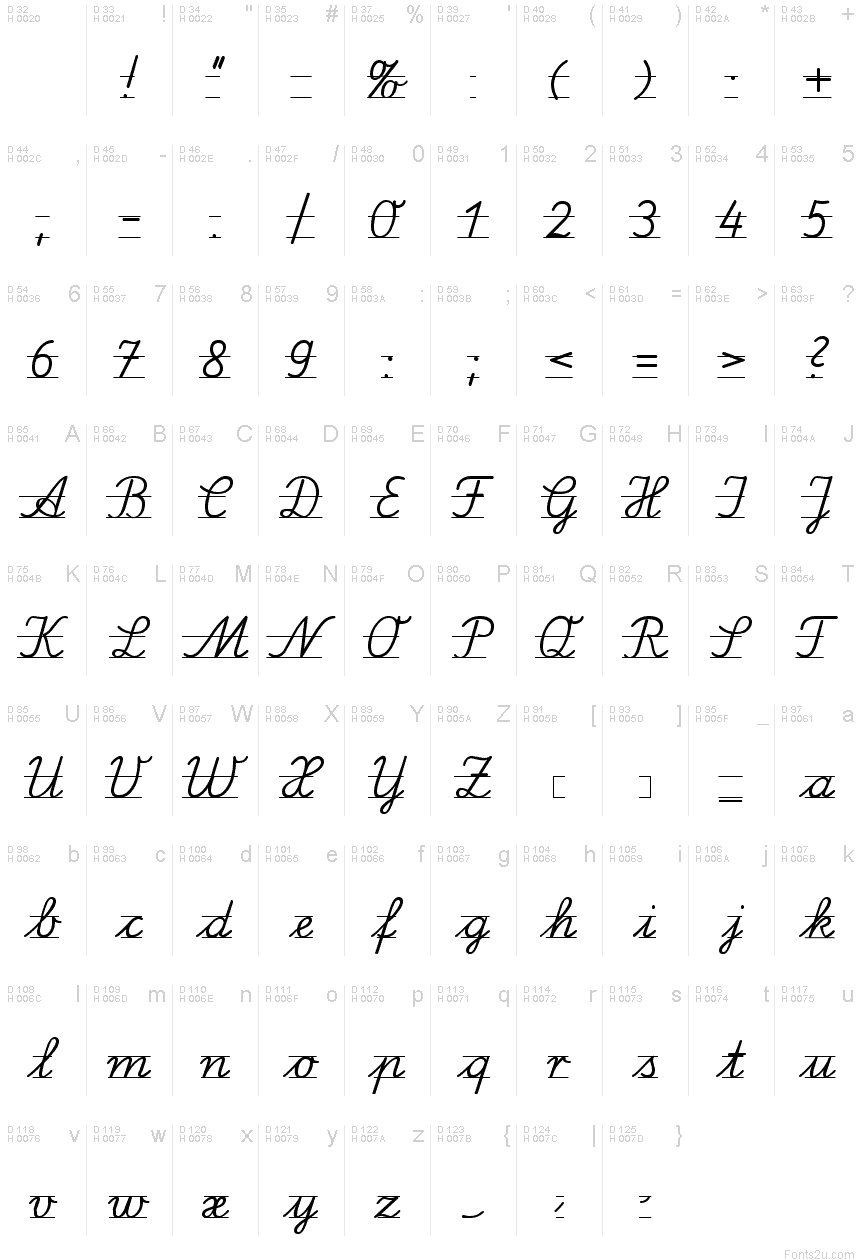
LA El 2
LA El 2 font by Will Softwareentwicklung is a free school script font with flowing looped strokes and a handwritten, classroom-note feel. The letters connect through long sweeping curves, with a tall slanted rhythm and a few rounded crossings that give it a neat but informal line.